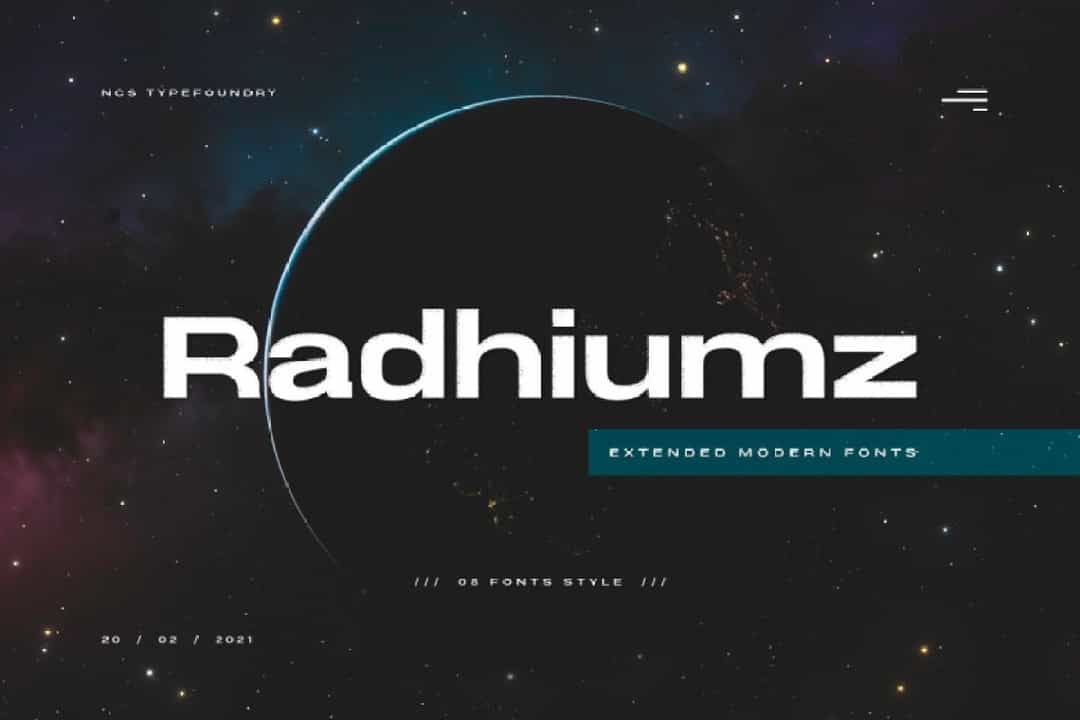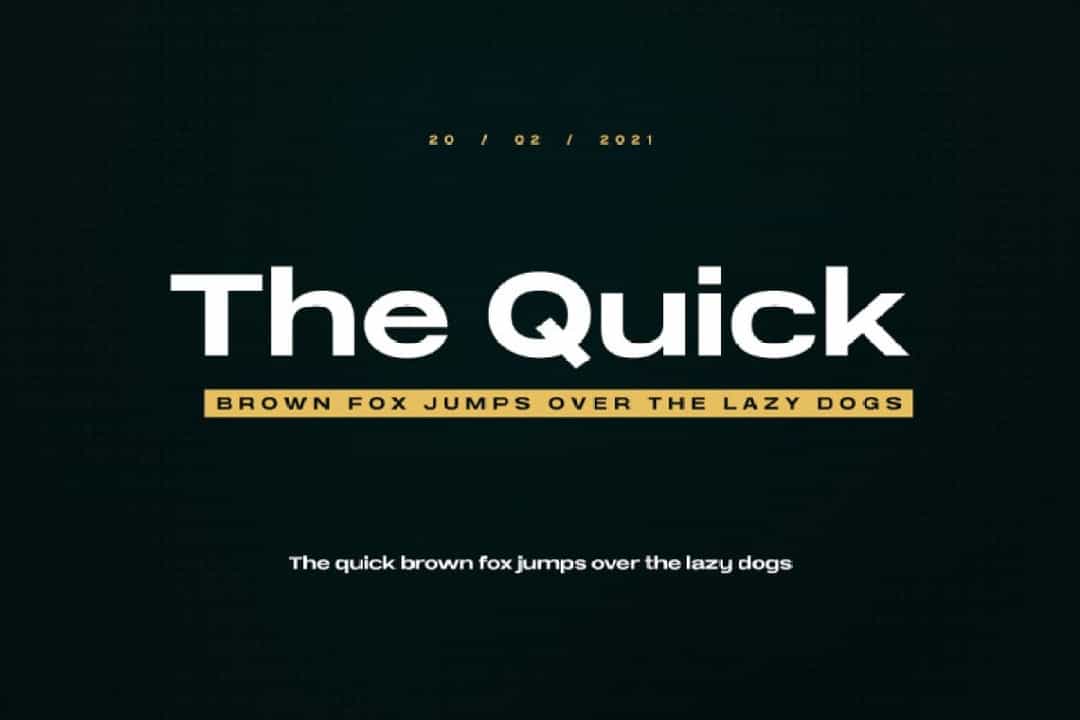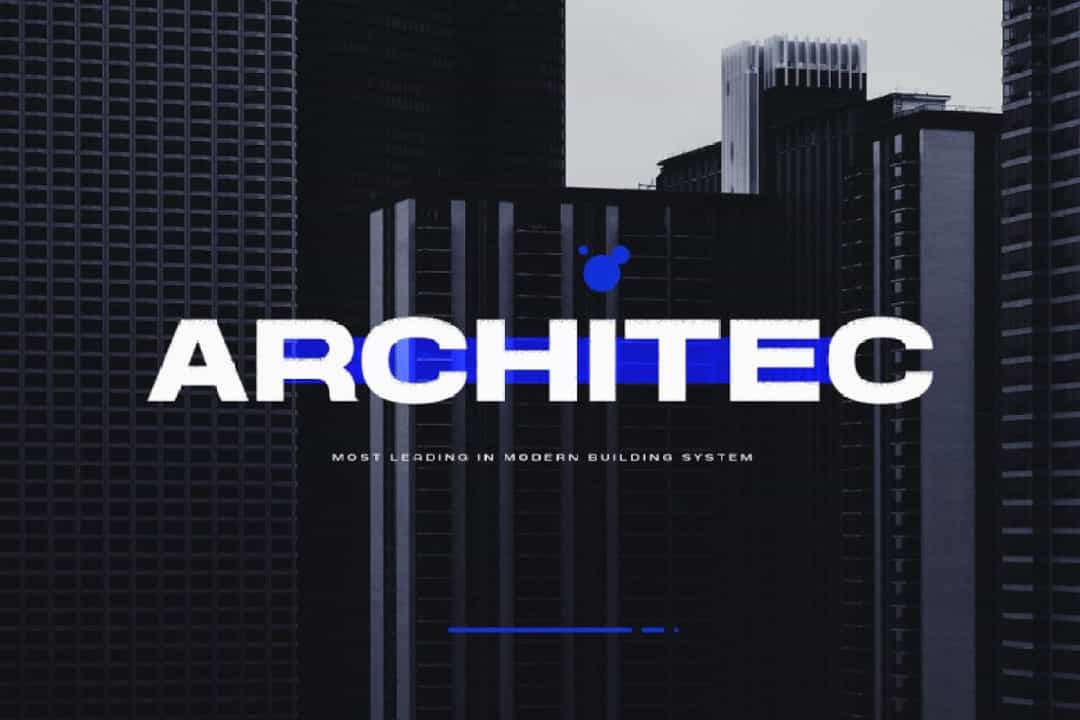
Radhiumz Extended is an elegant and modern font with a high level of readability, readability and full of professional look. Ideal for strong communication messages and strong typography, print or logo purposes, Radhiumz will assist in building up a unique and striking image for you and your organization.